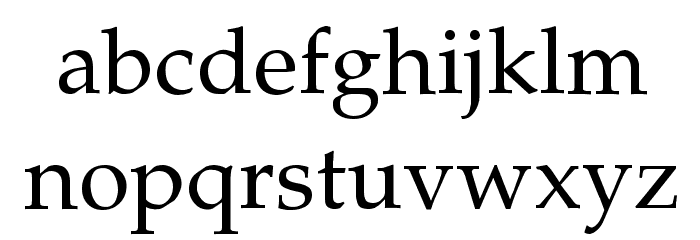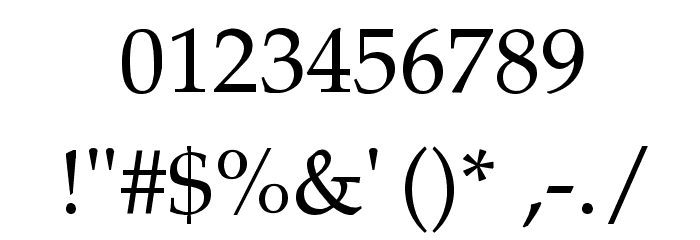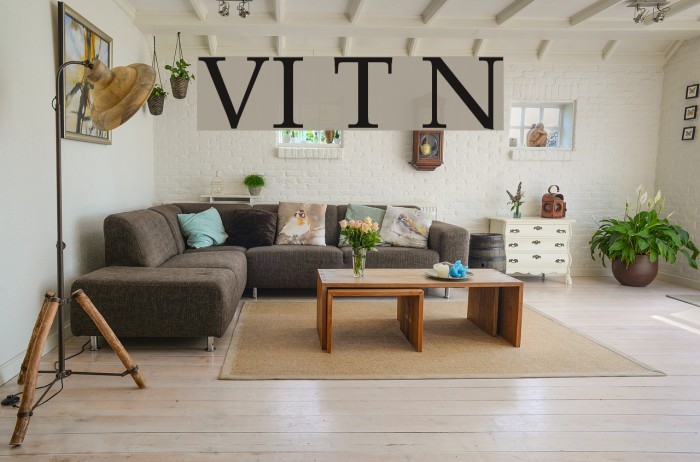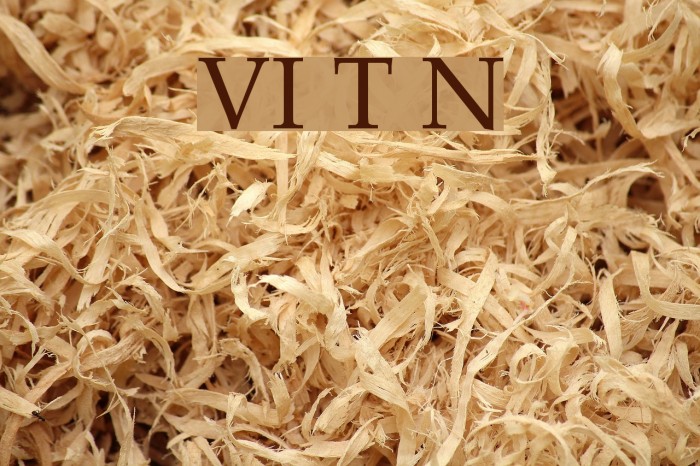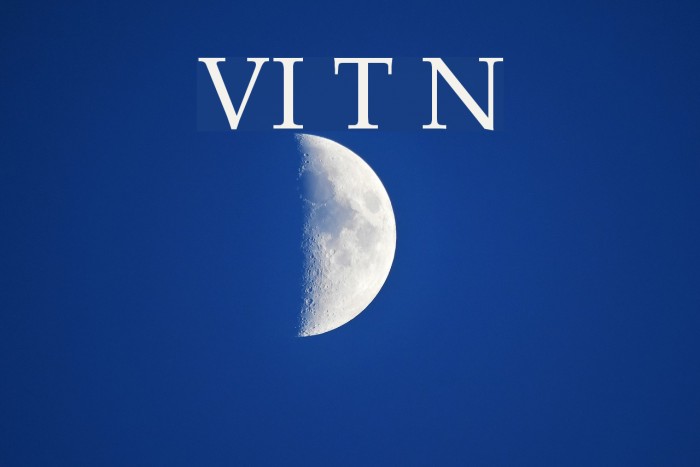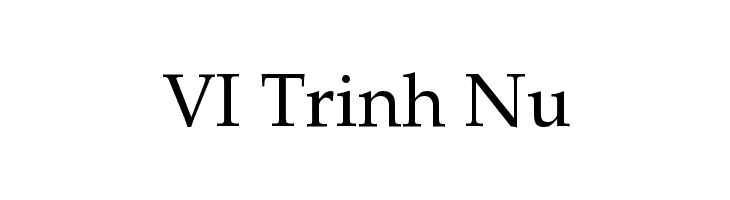
VI Trinh Nu Font
This font exhibits a classic serif style with elegant and refined strokes. The uppercase letters are bold and commanding, while the lowercase letters maintain a consistent and harmonious flow. The numerals are clear and well-proportioned, making them easily readable. The special characters are distinct and complement the overall style of the font. The serifs are pronounced, adding a touch of sophistication and tradition. This font is versatile, suitable for both formal and creative applications, providing a timeless aesthetic that can enhance various design projects.
A classic serif font with elegant strokes and pronounced serifs.
- Proposed Projects: Ideal for book covers, formal invitations, branding, and editorial design.
- Overall Style: Classic